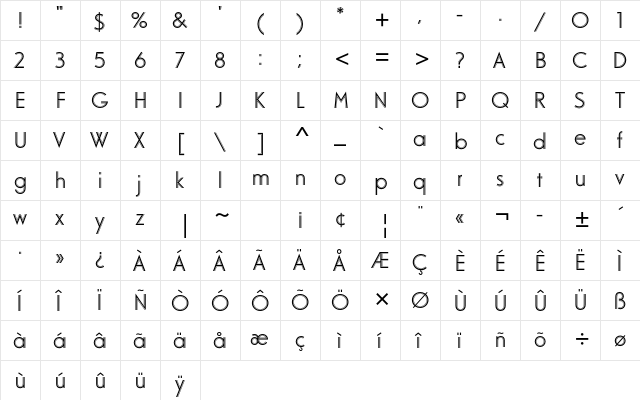
Odessa Std Regular
| Designer | Peter O'Donnell |
Design Context for Odessa Std Typeface
Odessa Std offers clean, dependable letterforms without strong stylistic allegiance, making it a practical choice for designers who need flexibility.